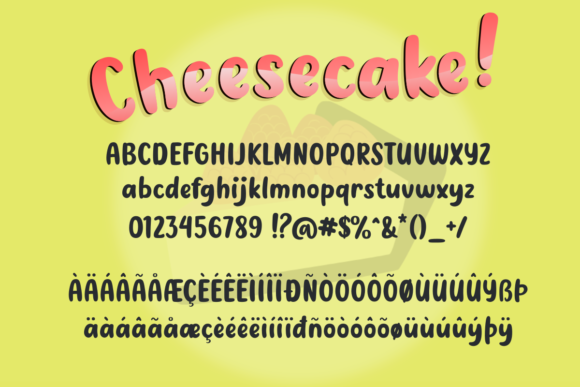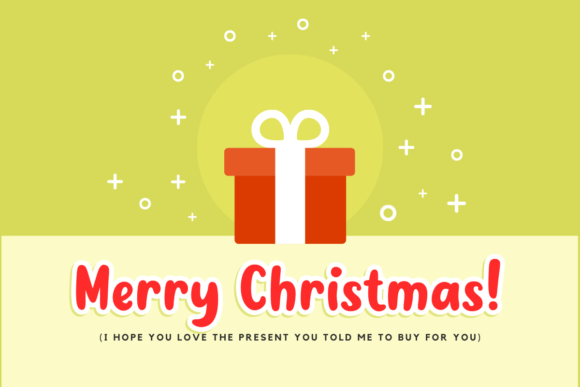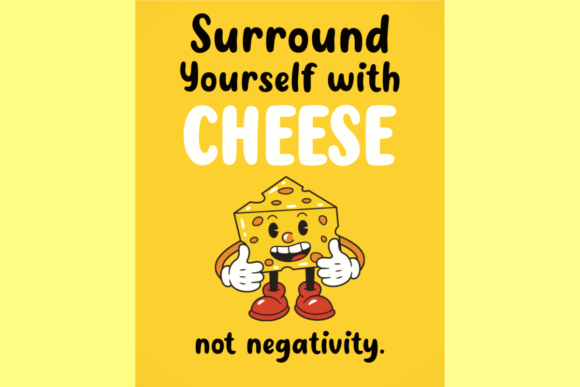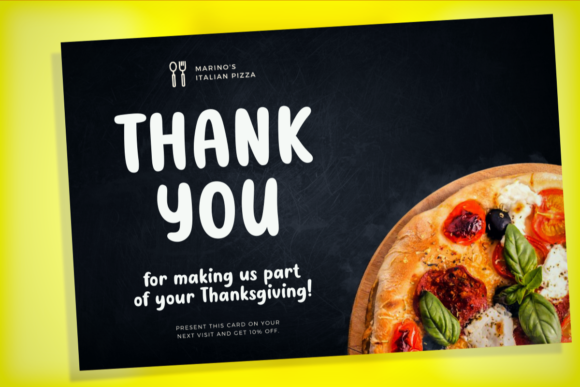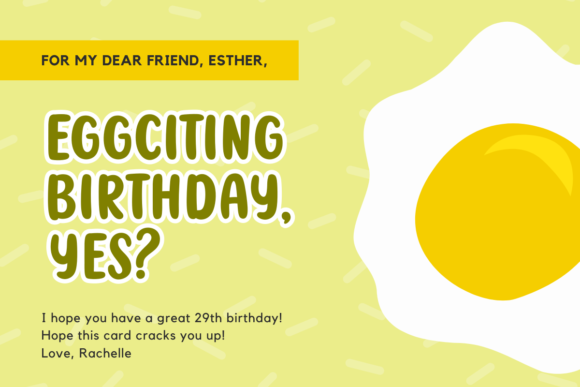
Cheesecake Font
About Cheesecake Font
Cheesecake is a cute, friendly and fun handwritten font. It embodies playfulness and authenticity and is the perfect choice for any children activity or school project.